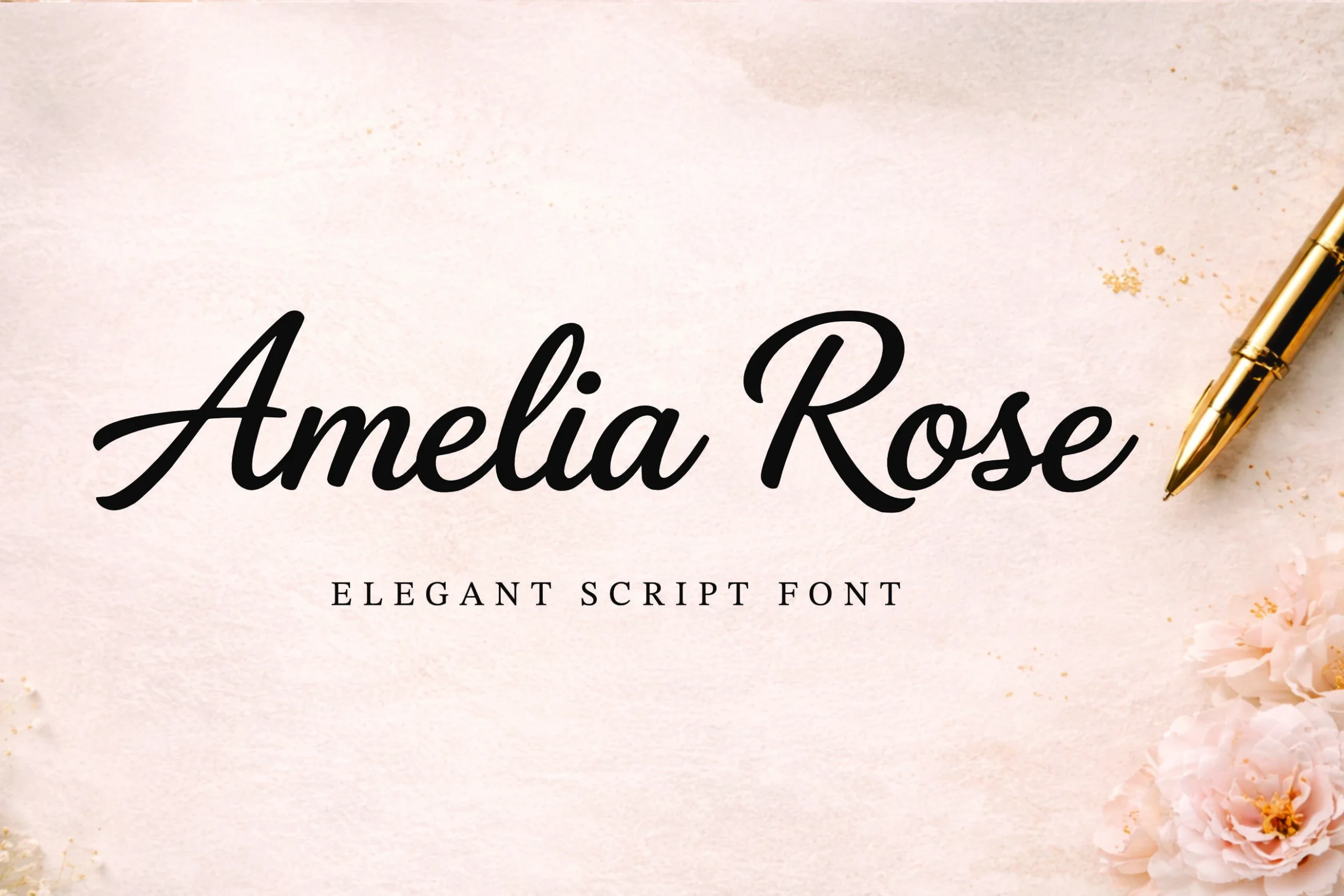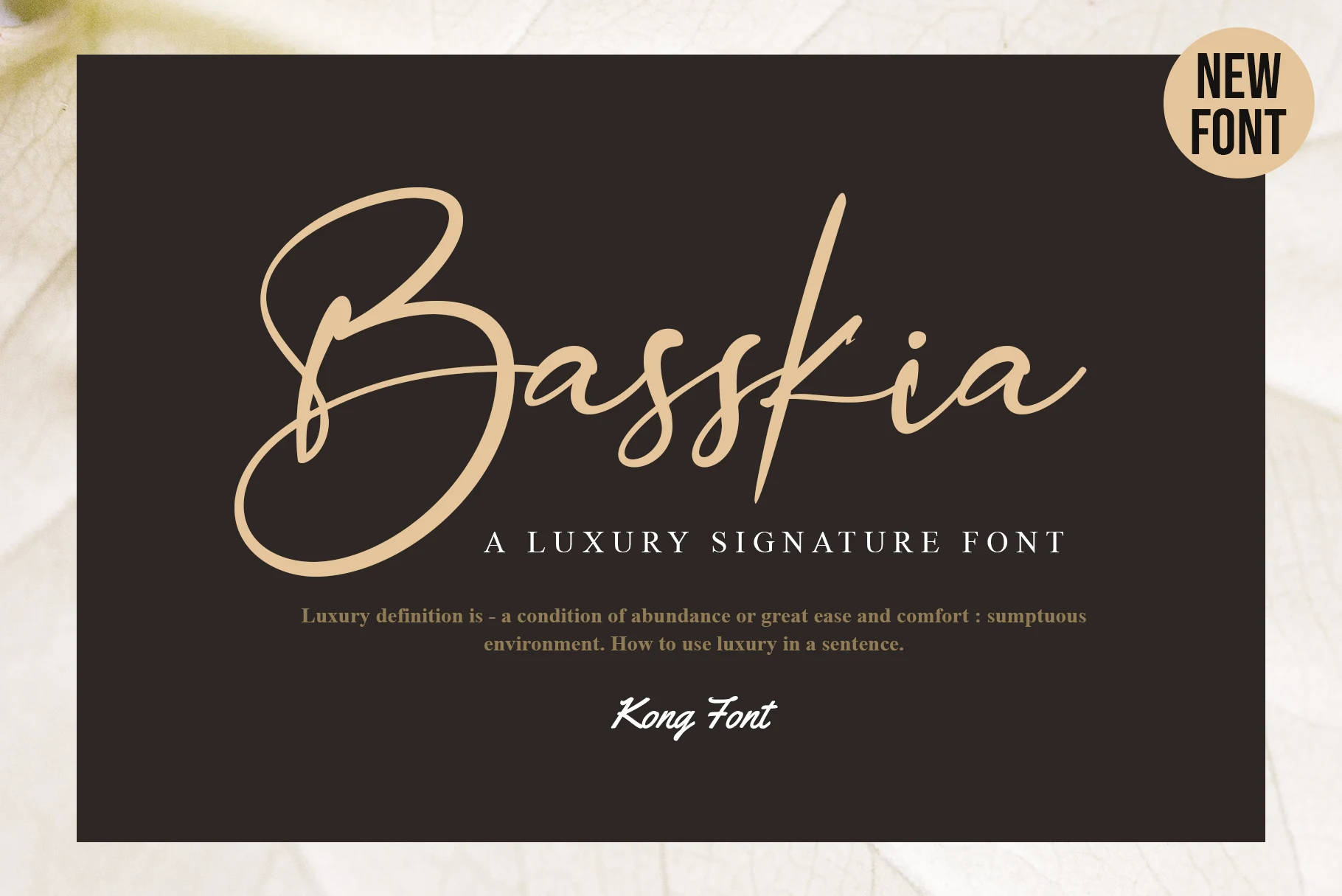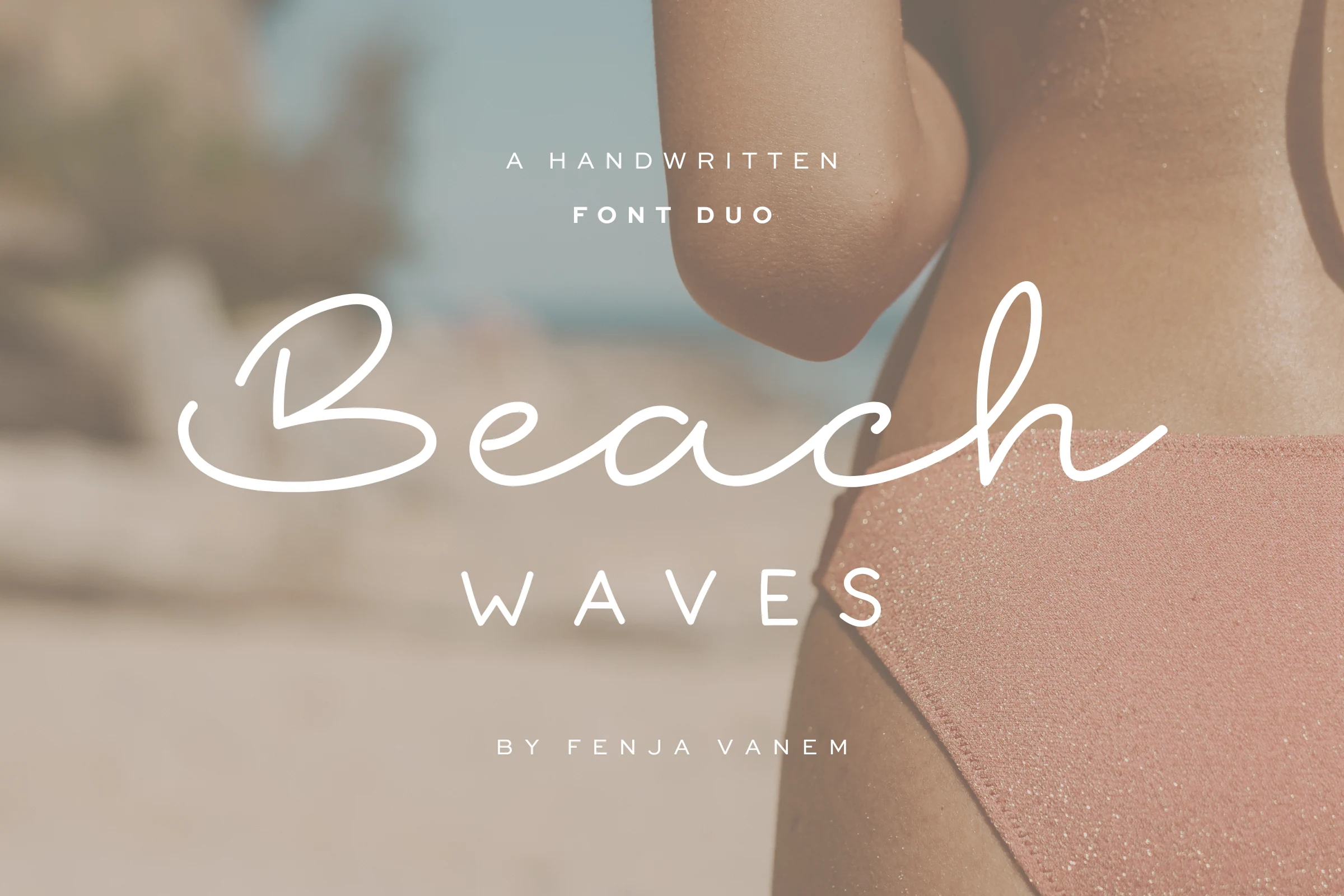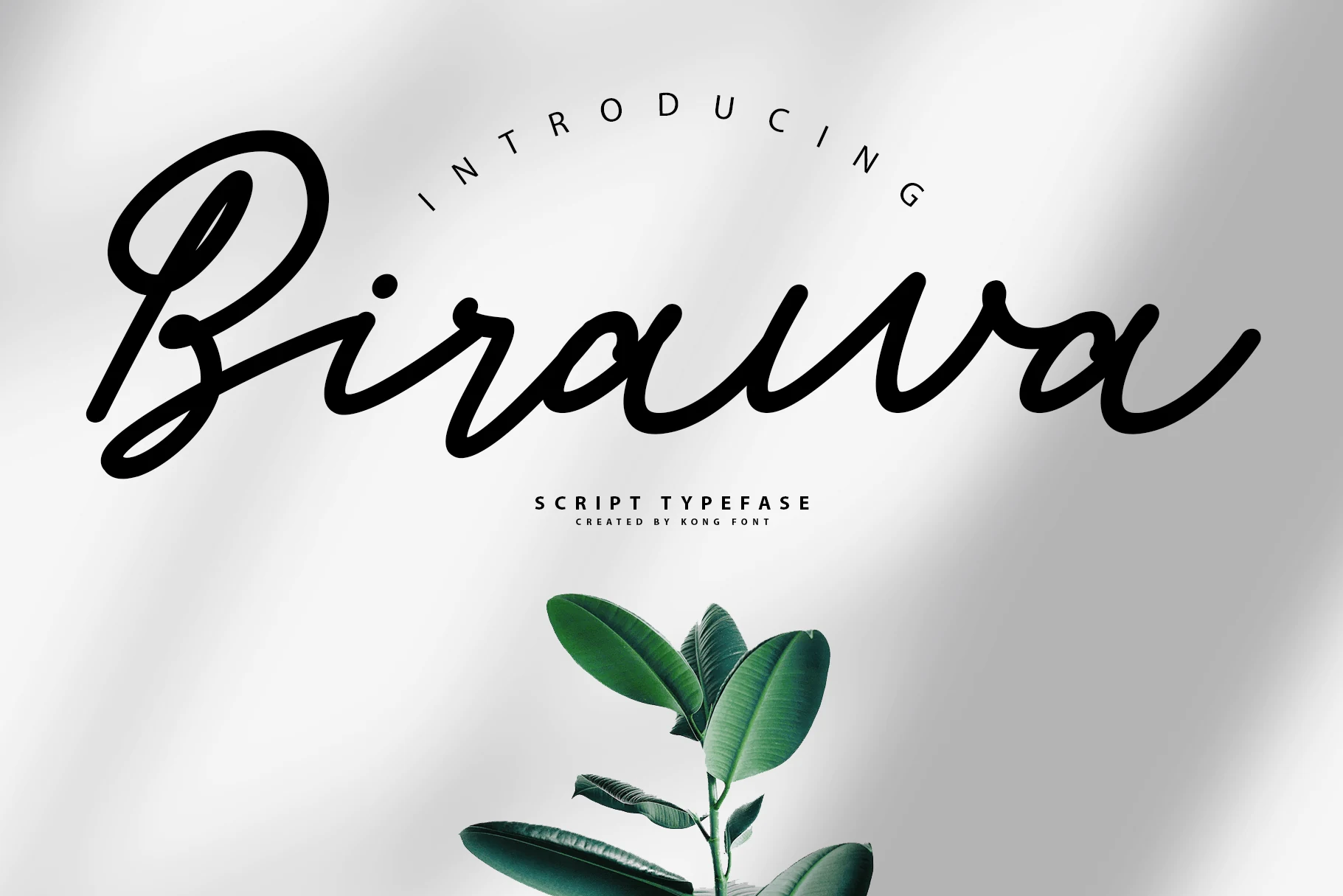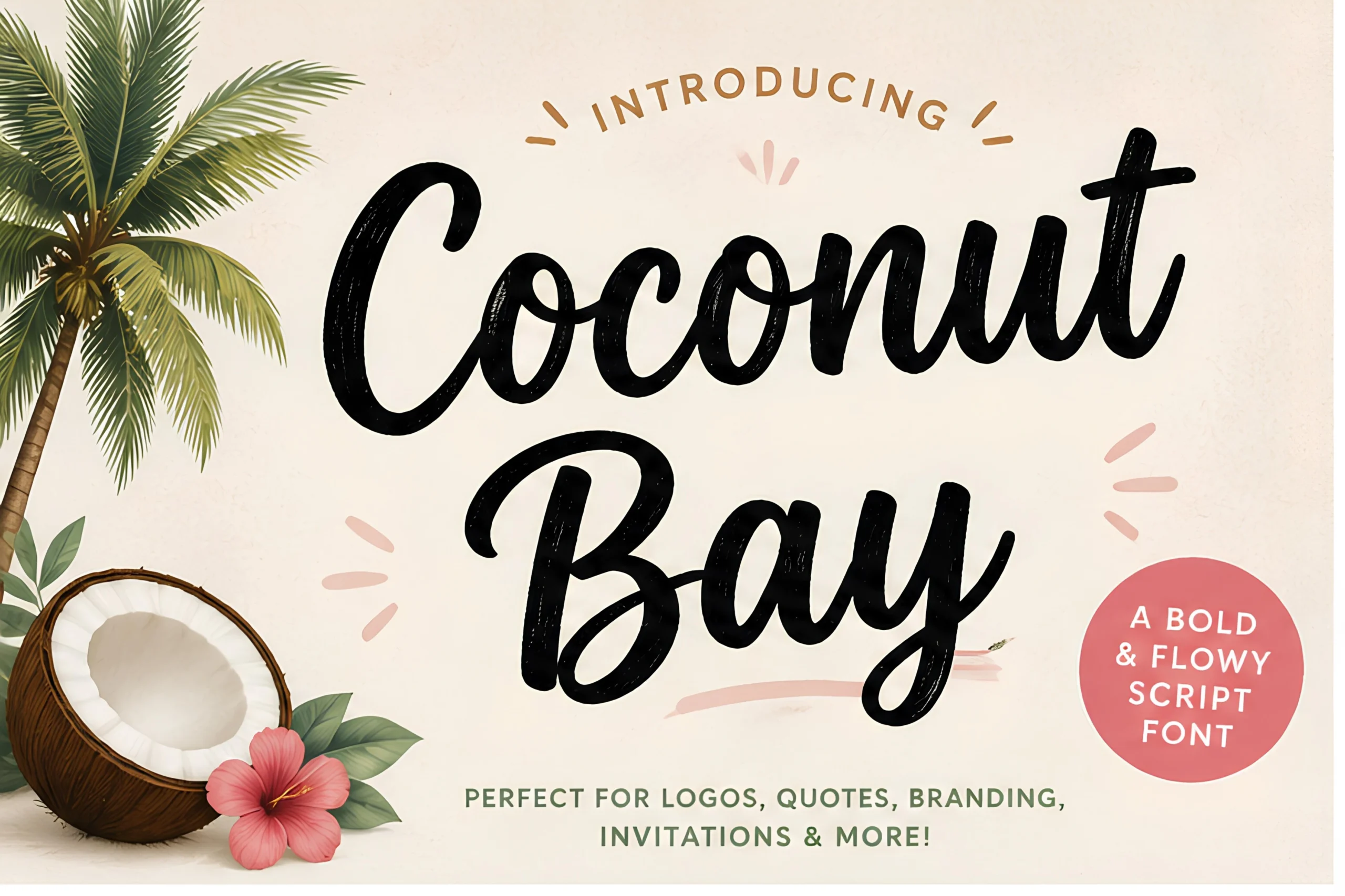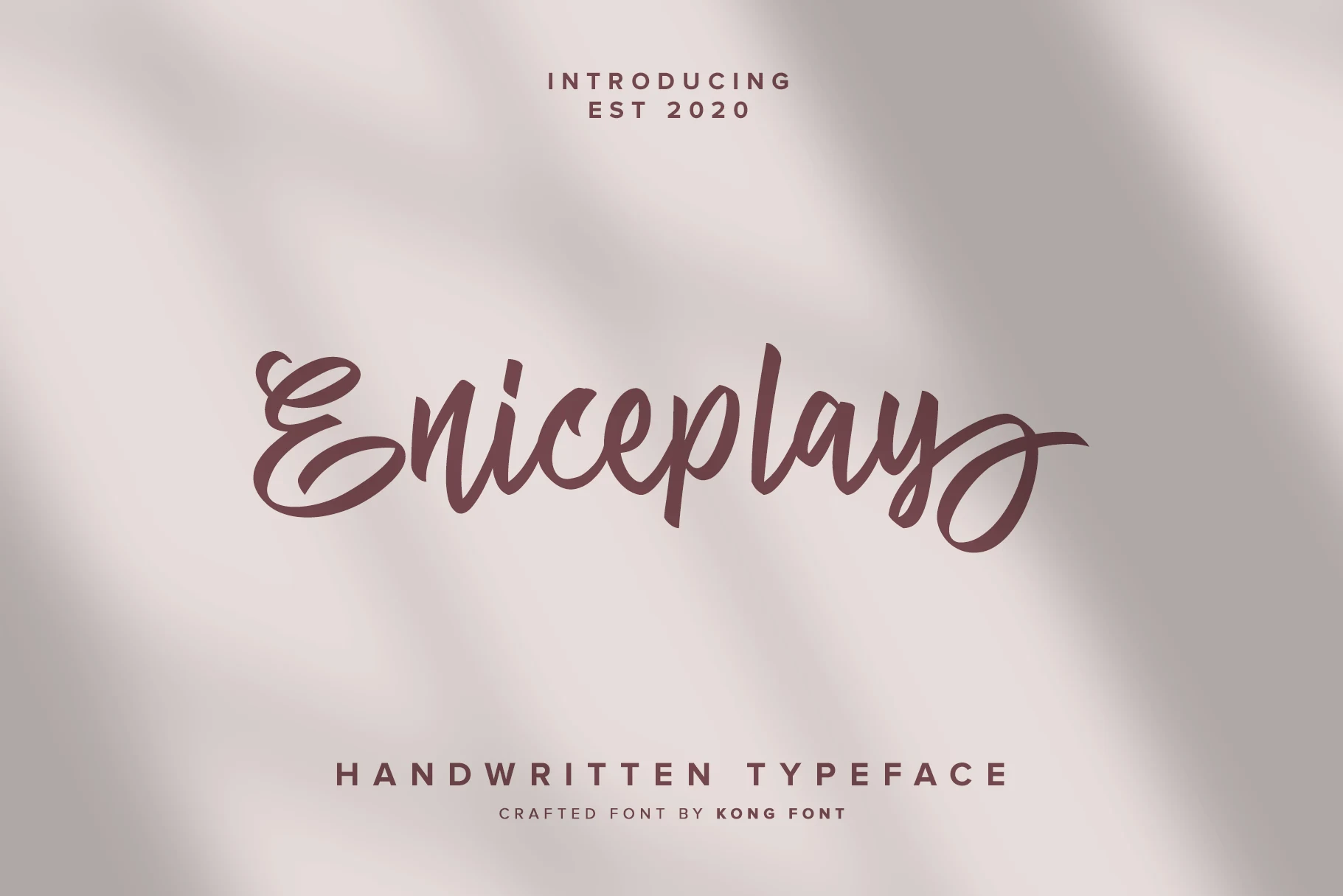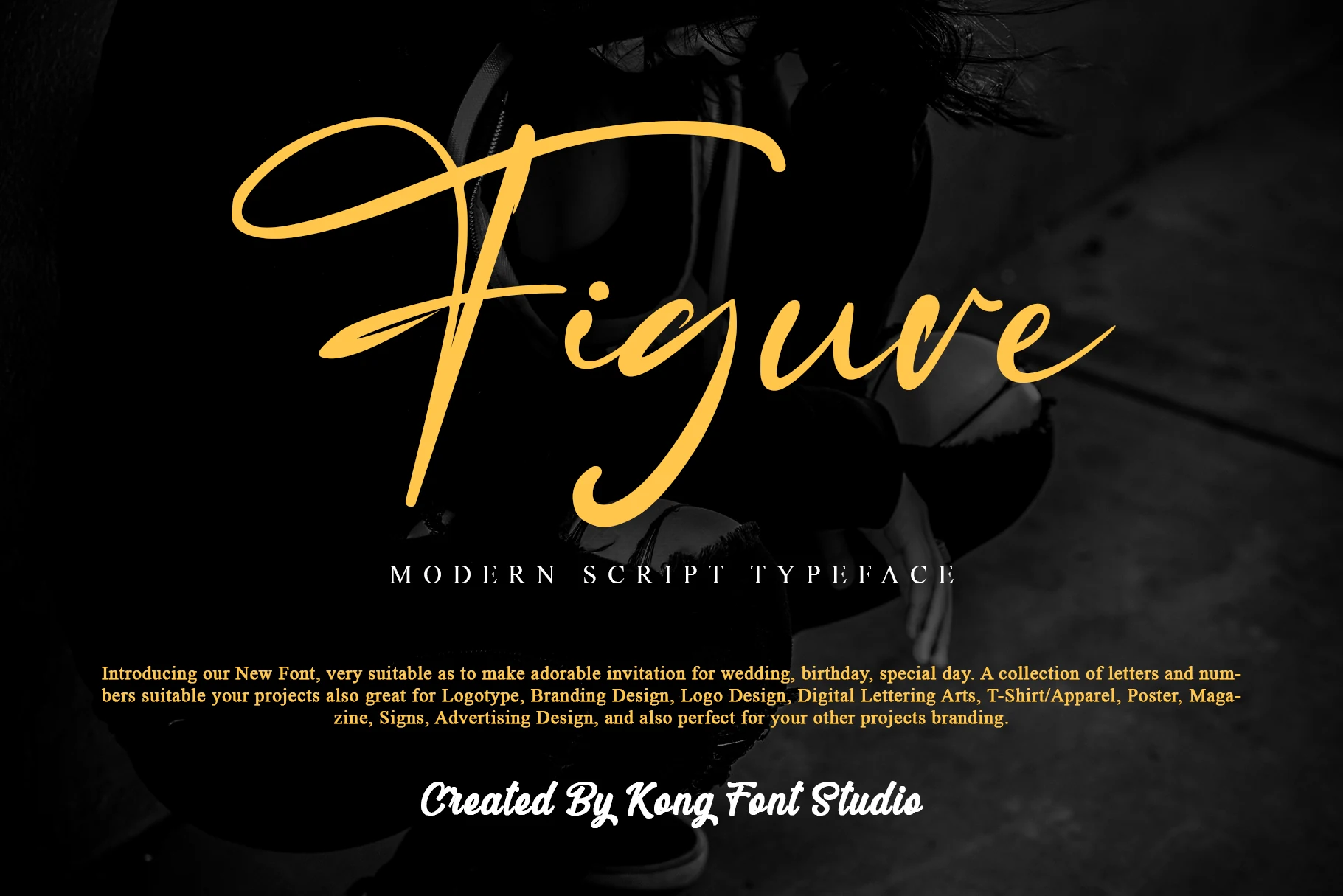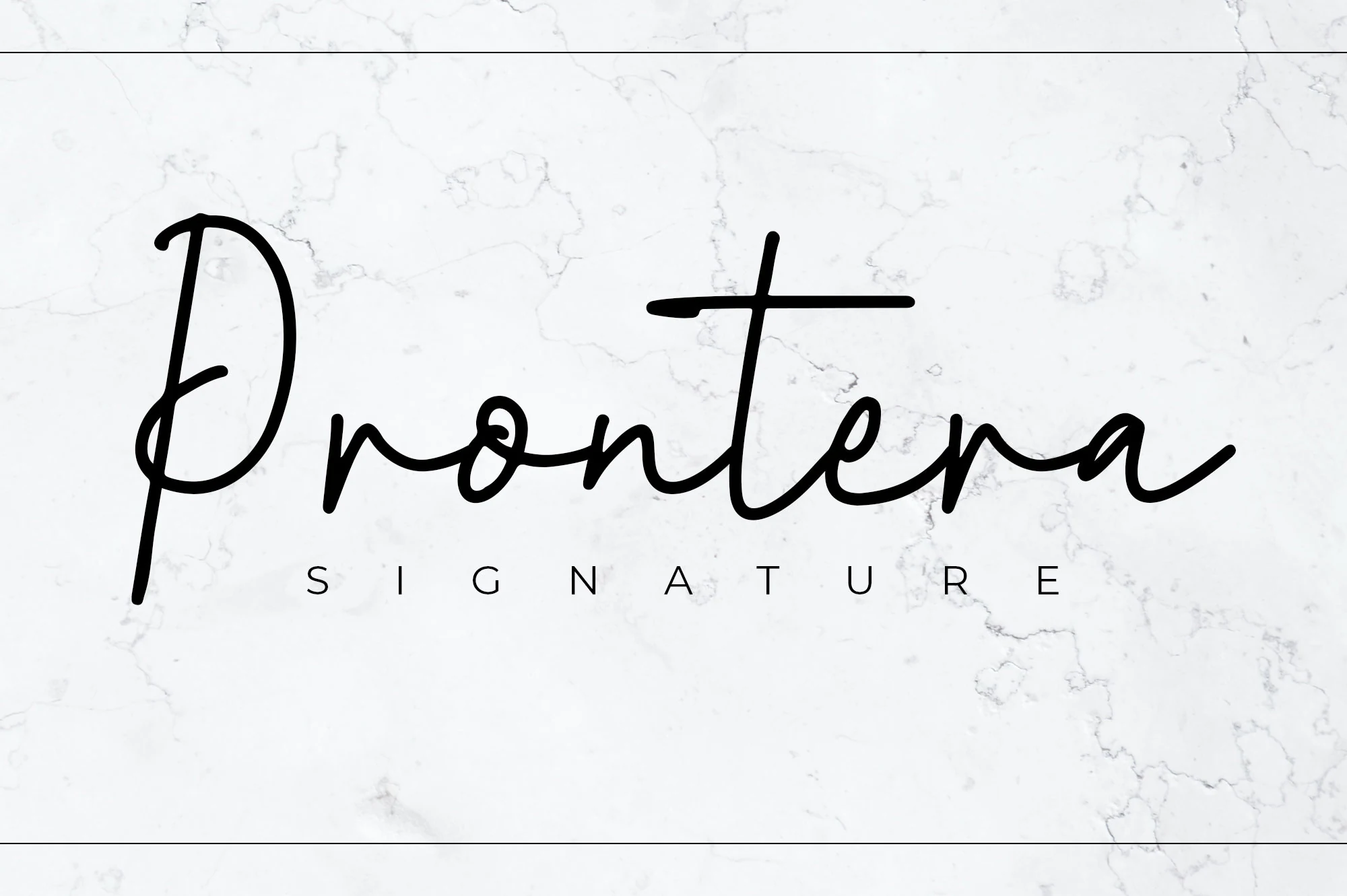
22 Handwritten Script Fonts for Designers: Styles in Focus
Choosing from handwritten script fonts for designers starts with the job your typography must do. Consider the words, their final size, and the mood of the project. The options below are organized to help you compare useful directions before testing candidates in your own layout.
How to evaluate the options
Set the real headline, name, or label in each candidate. Check legibility at the final size, compare the capitals and repeated letters, and leave enough room for decorative details. Use a quieter companion font for long descriptions and other supporting text.
Font picks
Amelia Rose Font for logos
Amelia Rose Font elegant black script preview with smooth curves and flowing letterforms
Amelia Rose Font is worth testing for logos, invitations, and wedding designs. Look for rounded letter shapes and flowing script forms when comparing it with other options. Try it at both headline and label size to judge its clarity.
Orchidia Font for signature logos
Orchidia Font preview in elegant white handwritten script with tall slender letters over a soft floral background
For signature logos, beauty branding, and product labels, consider Orchidia Font. Its design draws on rounded letter shapes and serif details. Try it at both headline and label size to judge its clarity.
Monoline Font for logos
Monoline Font preview in thin white signature script with a long trailing flourish
Monoline Font can anchor logos, personal branding, and beauty branding. The main visual cues are an even, monoline stroke and rounded letter shapes. Test connected letters in the exact words you plan to use.
Prontera Signature Font for logos
Prontera Signature Font preview in thin black signature script with flowing monoline strokes
Prontera Signature Font is worth testing for logos, personal branding, and wedding designs. Look for an even, monoline stroke and rounded letter shapes when comparing it with other options. Test connected letters in the exact words you plan to use.
Beach Waves Duo Font for branding
Beach Waves Duo Font preview with thin white handwritten script and spaced sans companion text
For branding, invitations, and fashion branding, consider Beach Waves Duo Font. Its design draws on an even, monoline stroke and brush-like movement. Test connected letters in the exact words you plan to use.
Basskia Font for logos
Basskia Font preview in thin beige signature script with a large looping capital B
Basskia Font can anchor logos, personal branding, and beauty branding. The main visual cues are an even, monoline stroke and serif details. Test connected letters in the exact words you plan to use.
Figure Font for logos
Figure Font preview in golden handwritten script with a long looping capital and smooth elegant strokes
Figure Font is worth testing for logos, invitations, and fashion branding. Look for flowing script forms and a handwritten character when comparing it with other options. Test letter joins and capitals in your actual wording.
Calestine Calligraphy Font for wedding designs
Calestine Calligraphy Font preview in elegant purple script with fine loops and flowing swashes
For wedding designs, invitations, and beauty branding, consider Calestine Calligraphy Font. Its design draws on serif details and flowing script forms. Inspect fine details before using it in small print.
Eniceplay Font for logos
Eniceplay Font preview in bold mauve handwritten script with looping swashes
Eniceplay Font can anchor logos, social media graphics, and stickers. The main visual cues are brush-like movement and rounded letter shapes. Check how the texture holds up against the background.
Final checks before using a font